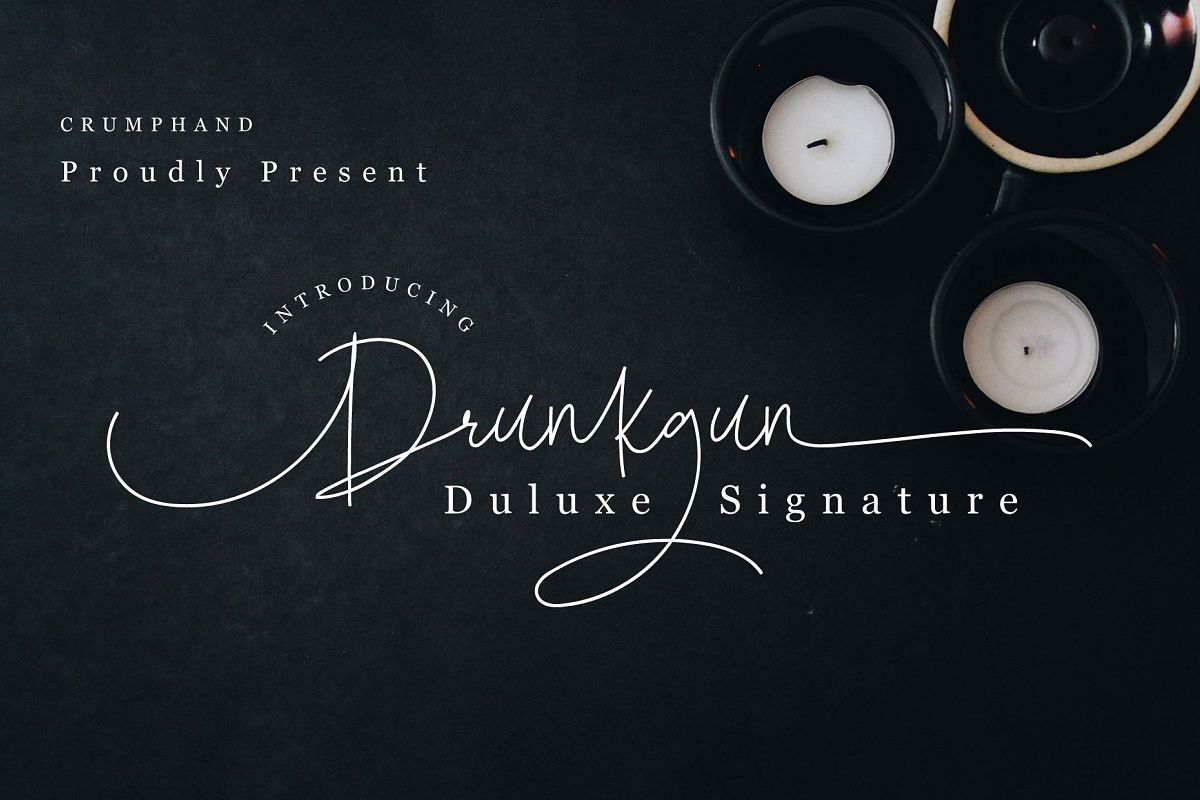
Drunkgun Script
Drunkgun
i just want to introducing my new font. its called Drunkgun Duluxe Signature.
this font its really perfect Signature.
• Drunkgun Uppercase
• Drunkgun Lowercase
• Drunkgun Stylistic Alternates
• Drunkgun Standart Ligature
• Drunkgun Contextual Alternates
• Drunkgun Terminal
• Drunkgun Titling Alternates
• Drunkgun Swash